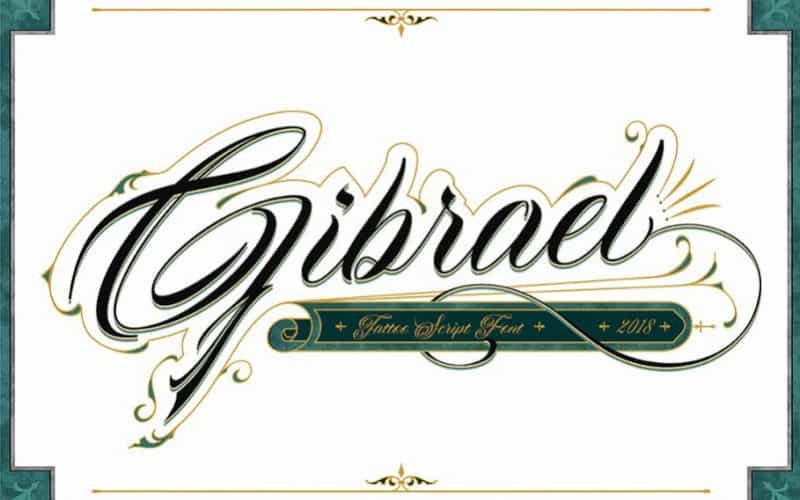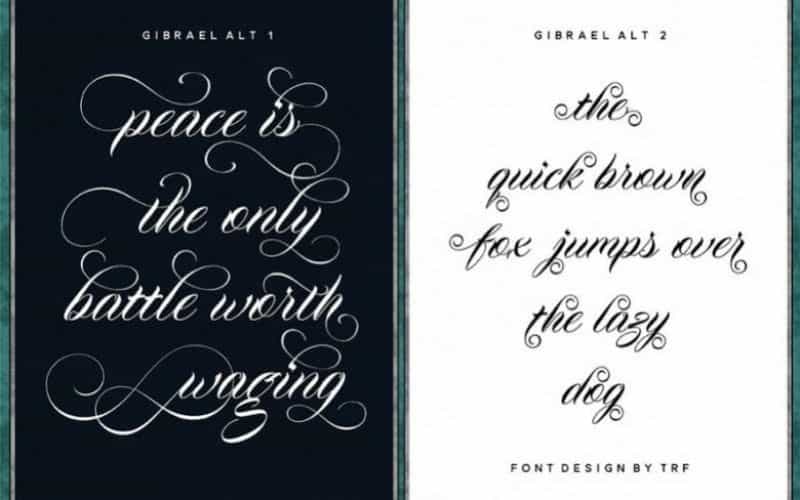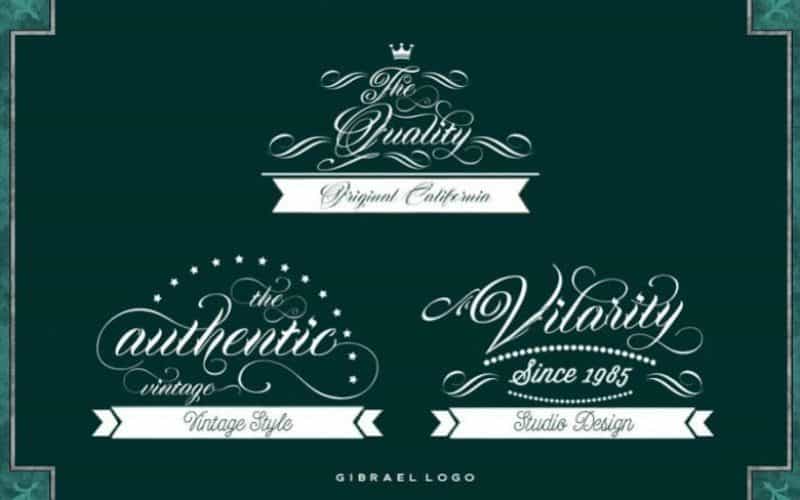
Discover Gibrael Calligraphy Font, part of the Commercial Calligraphy collection—a versatile and unique font perfect for adding a personal touch to your projects. Download it for free and enjoy crafting designs with style, from invitations to social media posts. This font is available exclusively for personal use, giving you the freedom to create without limits. Unlock your creativity with Gibrael Calligraphy Font today!
Gibrael is indeed the perfect script for any project that requires a delicate typeface, like custom name, greeting card, create logos, etc. A handy font for tattoo designer and artsy creative people!It is a gorgeous, stylish, neat, and distinctive style you must get. Comprising of more than 600 glyphs, it has a lot of alternate characters thus you can create a beautiful decorative type readily.